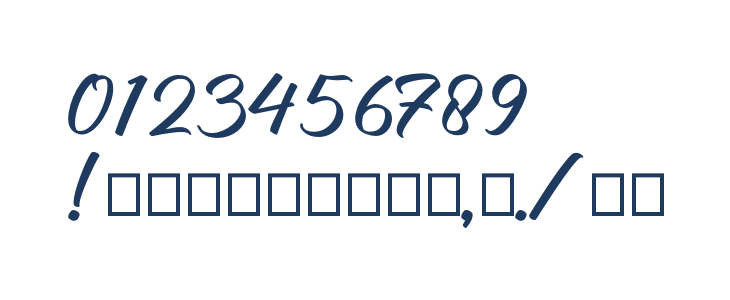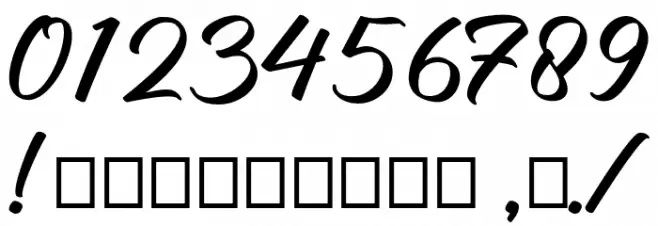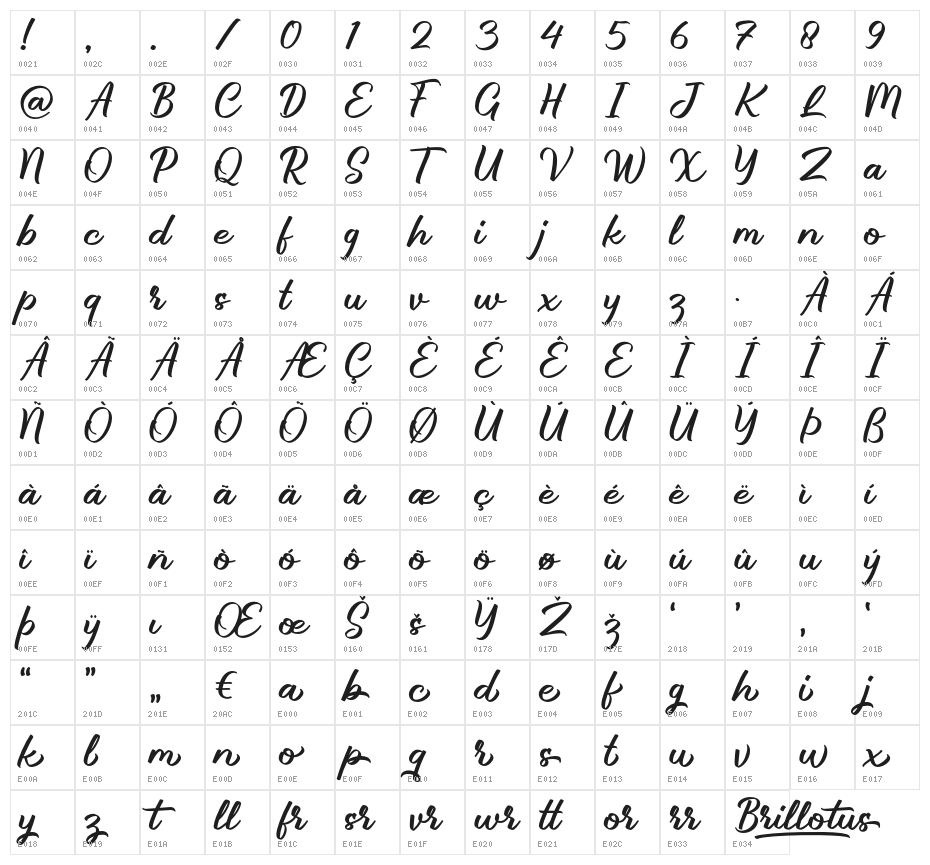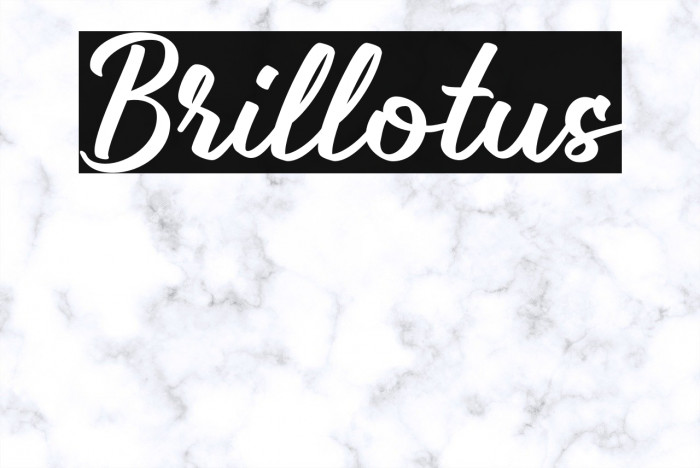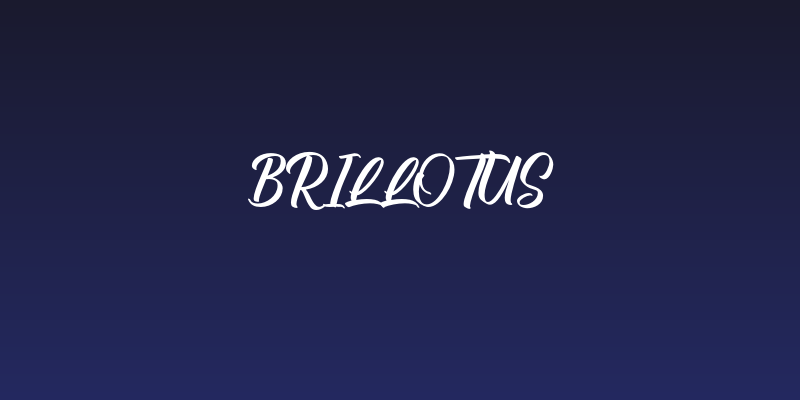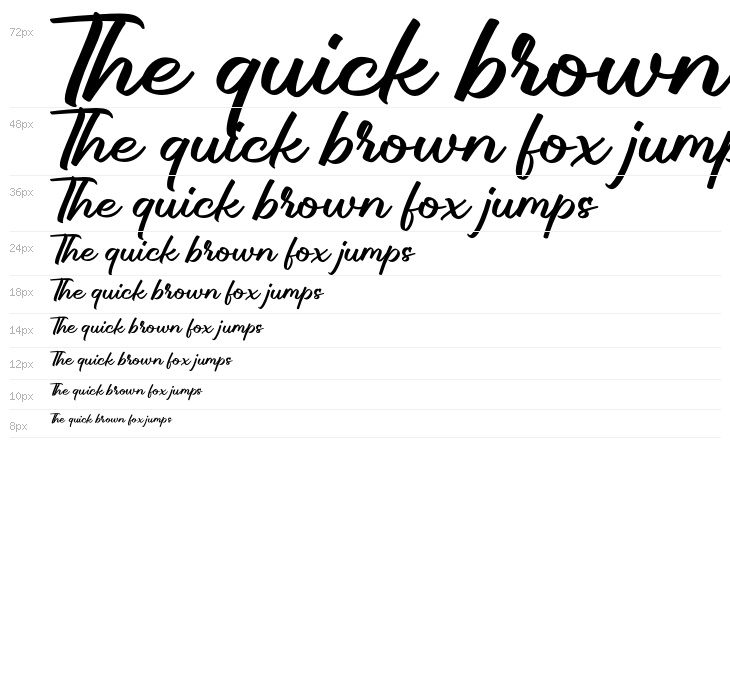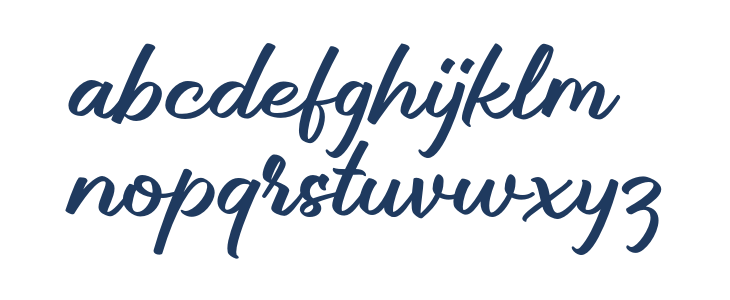
Brillotus Font
Brillotus Description
This font exhibits a dynamic and fluid script style, characterized by its elegant and flowing letterforms. The uppercase letters are bold and expressive, with a slight slant that adds a sense of movement and grace. The lowercase letters maintain a consistent rhythm, enhancing readability while preserving the artistic flair. Numbers are designed with similar fluidity, ensuring a cohesive look across all characters. The font's overall appearance is both sophisticated and approachable, making it suitable for a variety of creative applications.